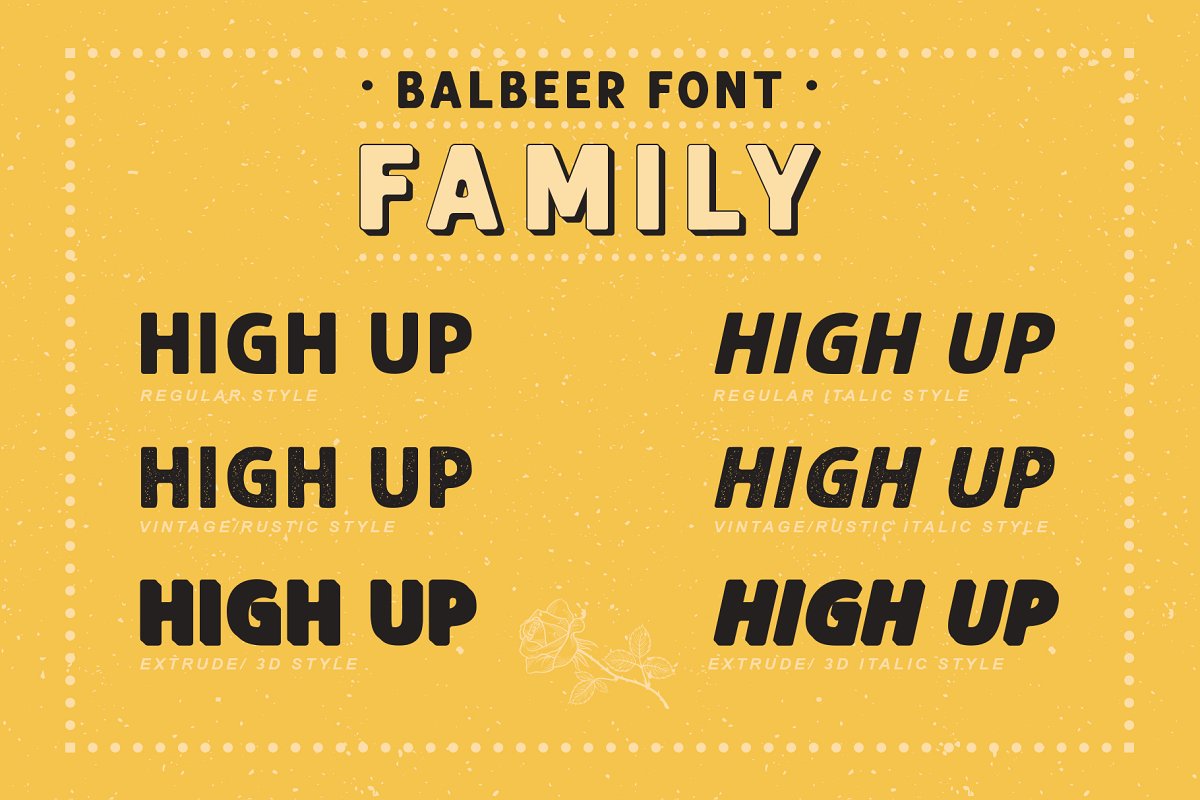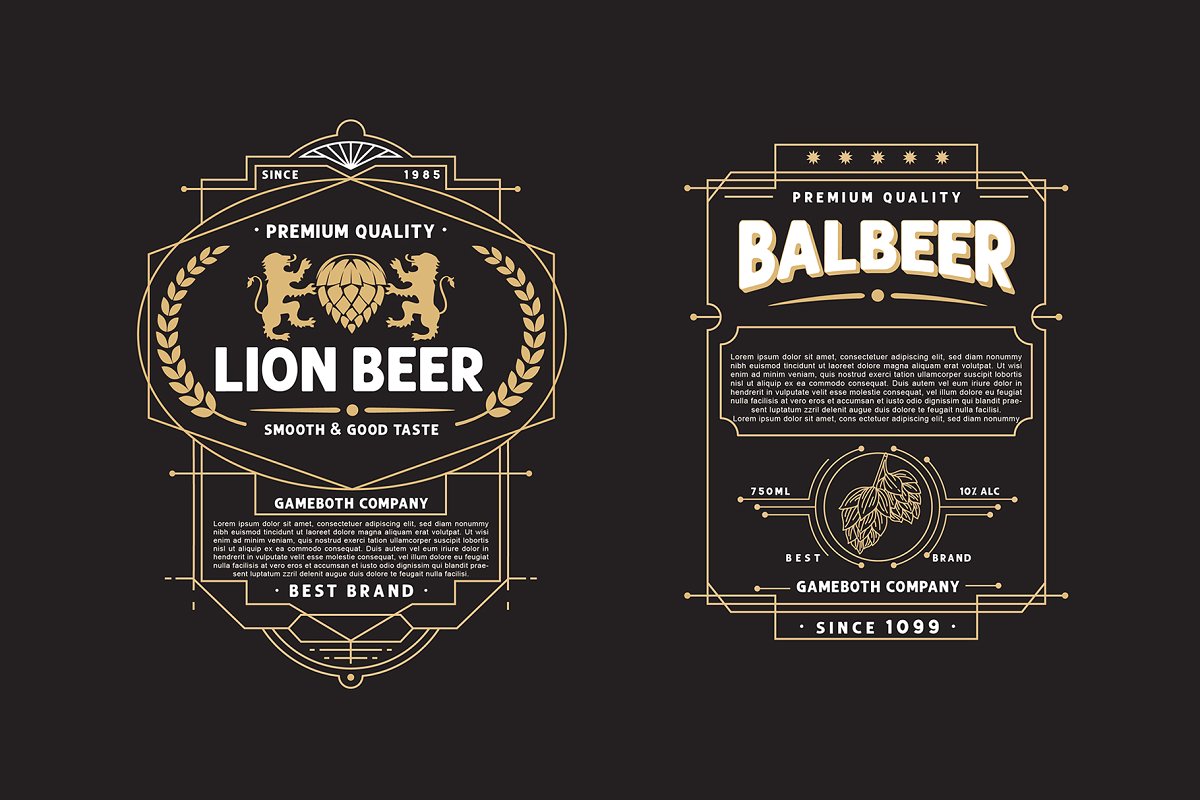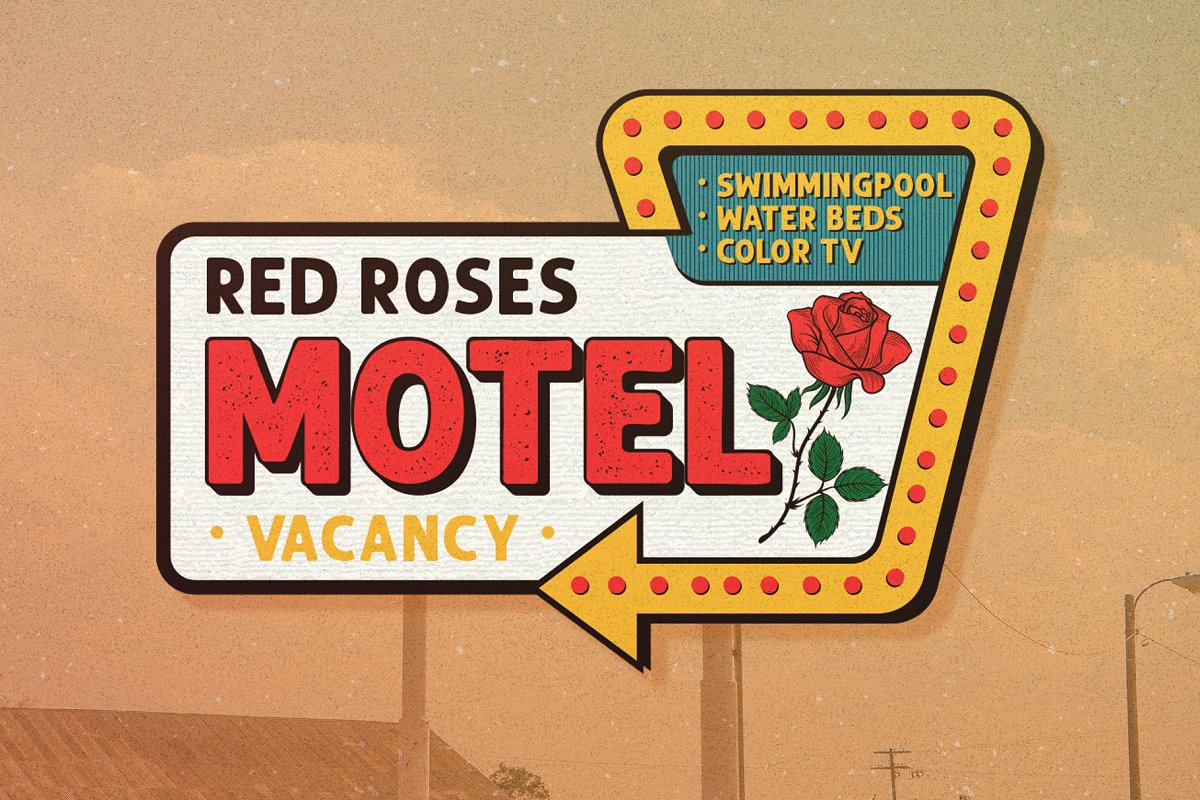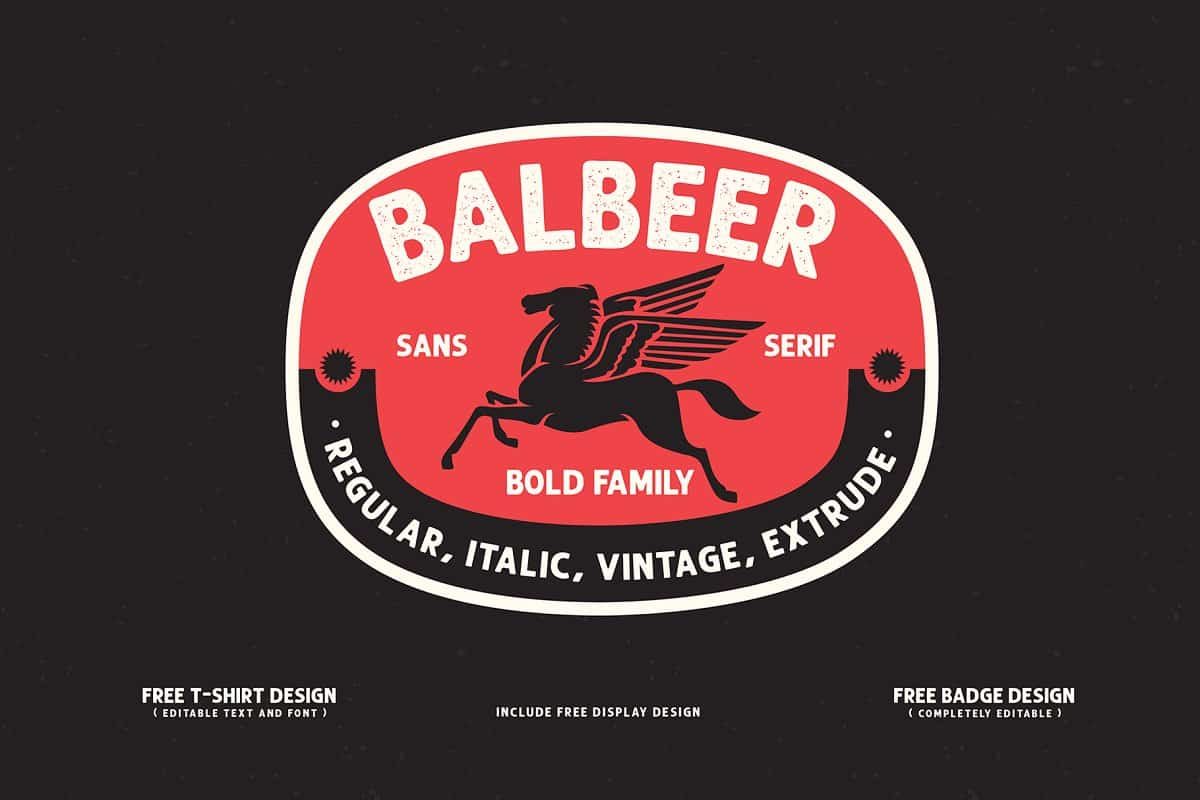
Balbeer Font Family
Hi designer. This is a very impressive vintage font family. Introducing Balbeer Typeface. It can be used for headlines, posters, branding, packaging, presentations, logo, quotes, titles, magazines headings, web layouts, advertising, invitations, packaging design, books, and nearly any creative design.